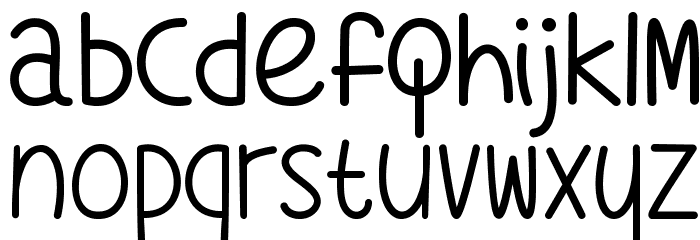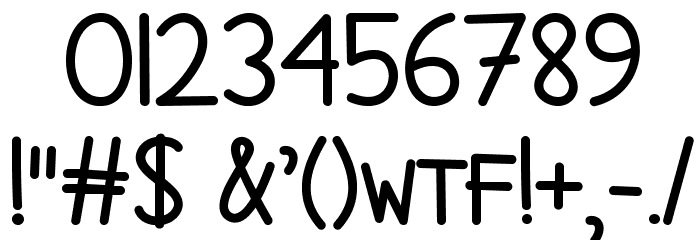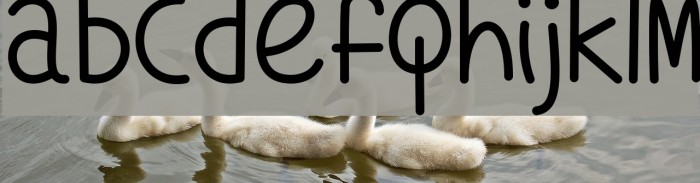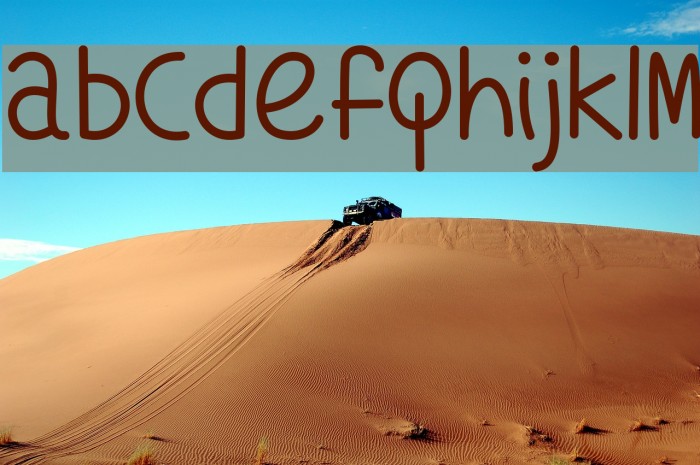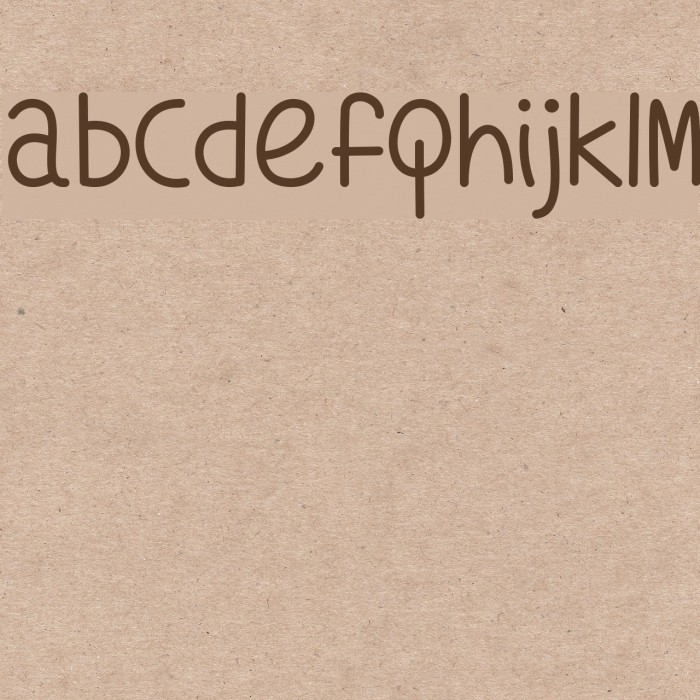
WhatsMyAgeAgain Font
This playful and whimsical font features rounded edges and a casual, handwritten style. The characters are evenly spaced, with a consistent stroke width that gives it a clean and approachable appearance. The lowercase letters have a friendly and informal look, while the uppercase letters maintain a sense of structure and balance. Numbers and special characters are designed to match the overall aesthetic, making it versatile for various uses. The font's simplicity and charm make it ideal for projects that require a personal touch.
A playful, handwritten font with rounded edges and consistent stroke width.
- Proposed Projects: Great for children's books, greeting cards, casual branding, and playful social media graphics.
- Overall Style: Casual
- Use Case: Headlines, Informal text, Branding